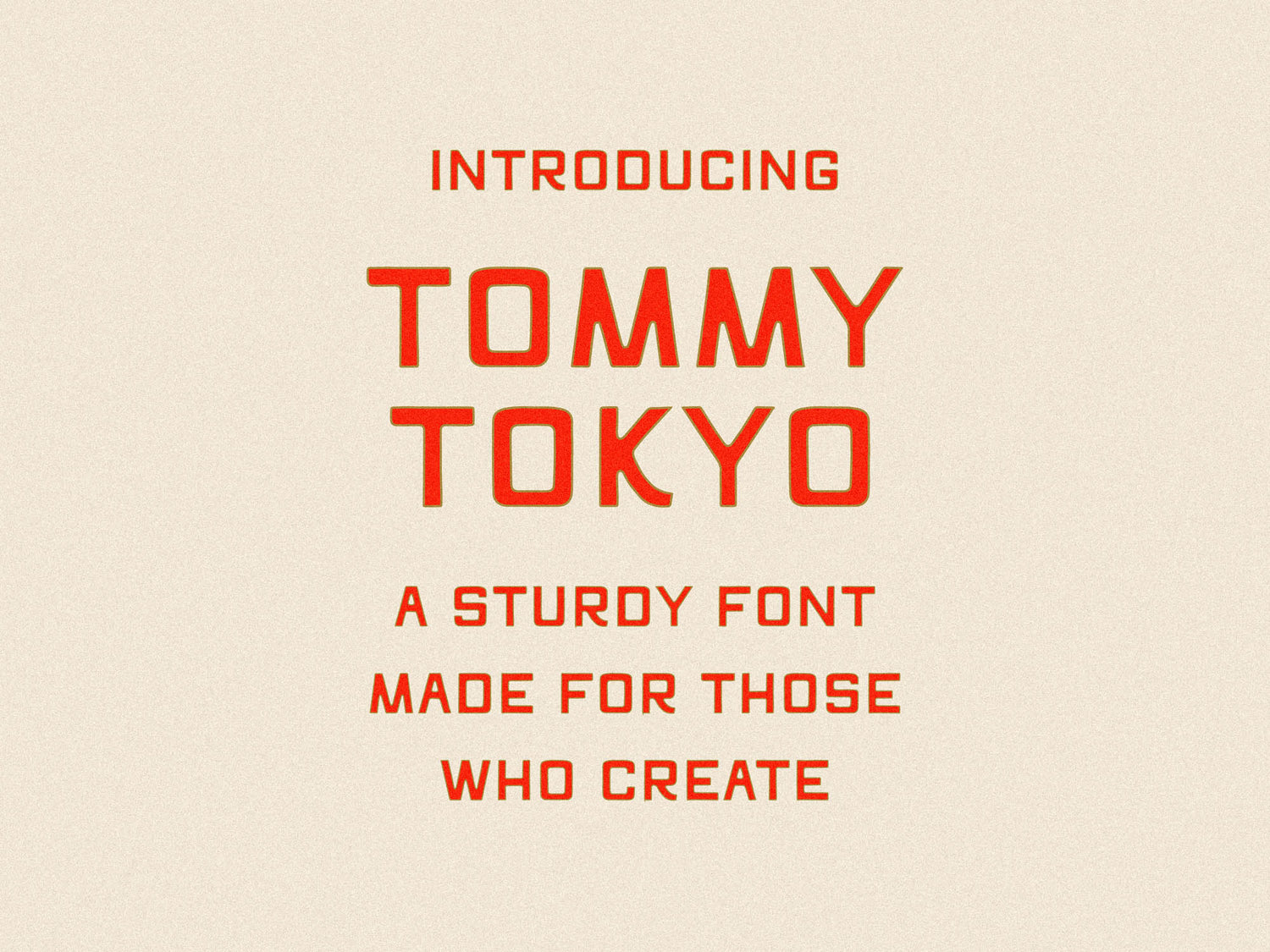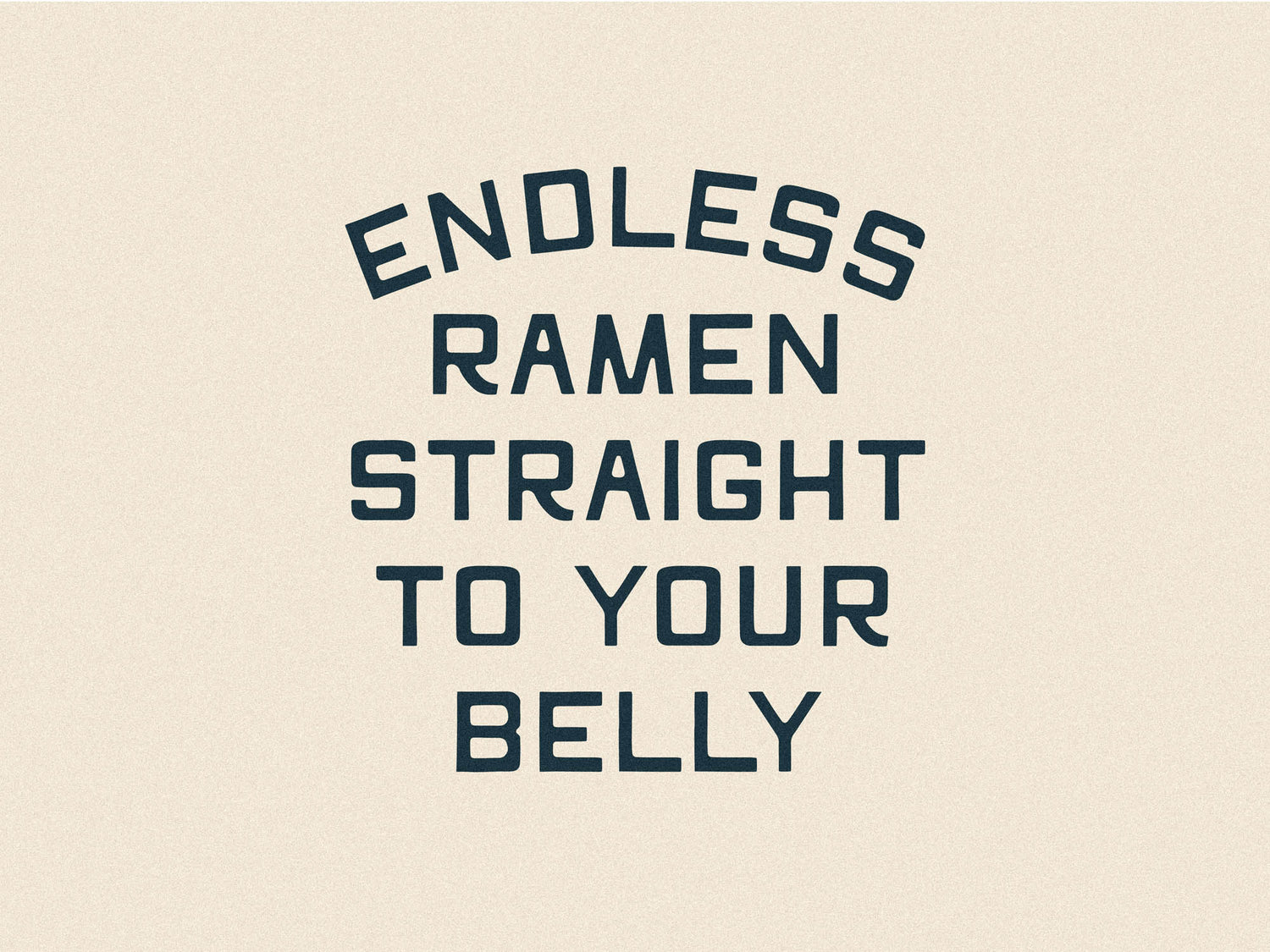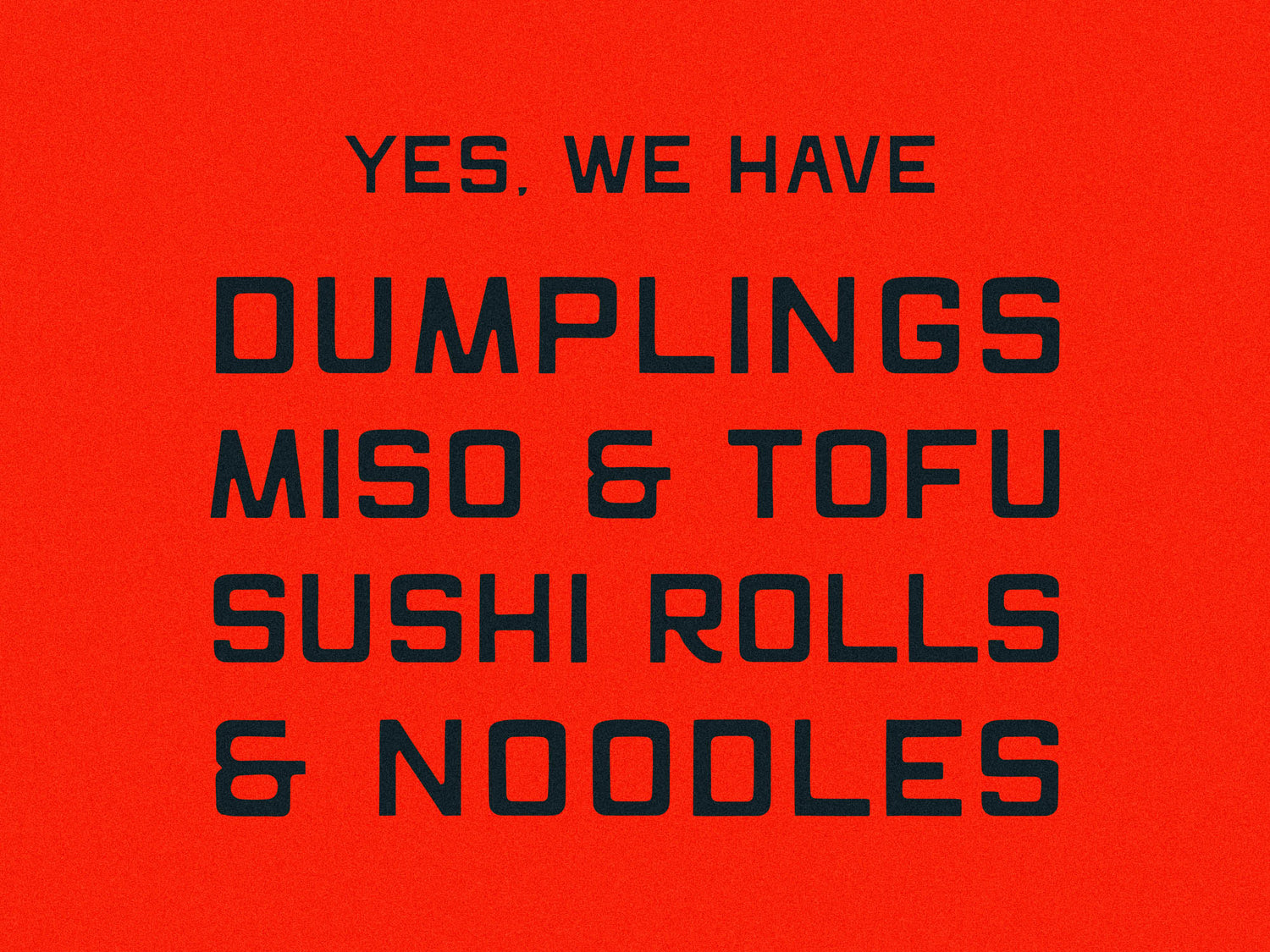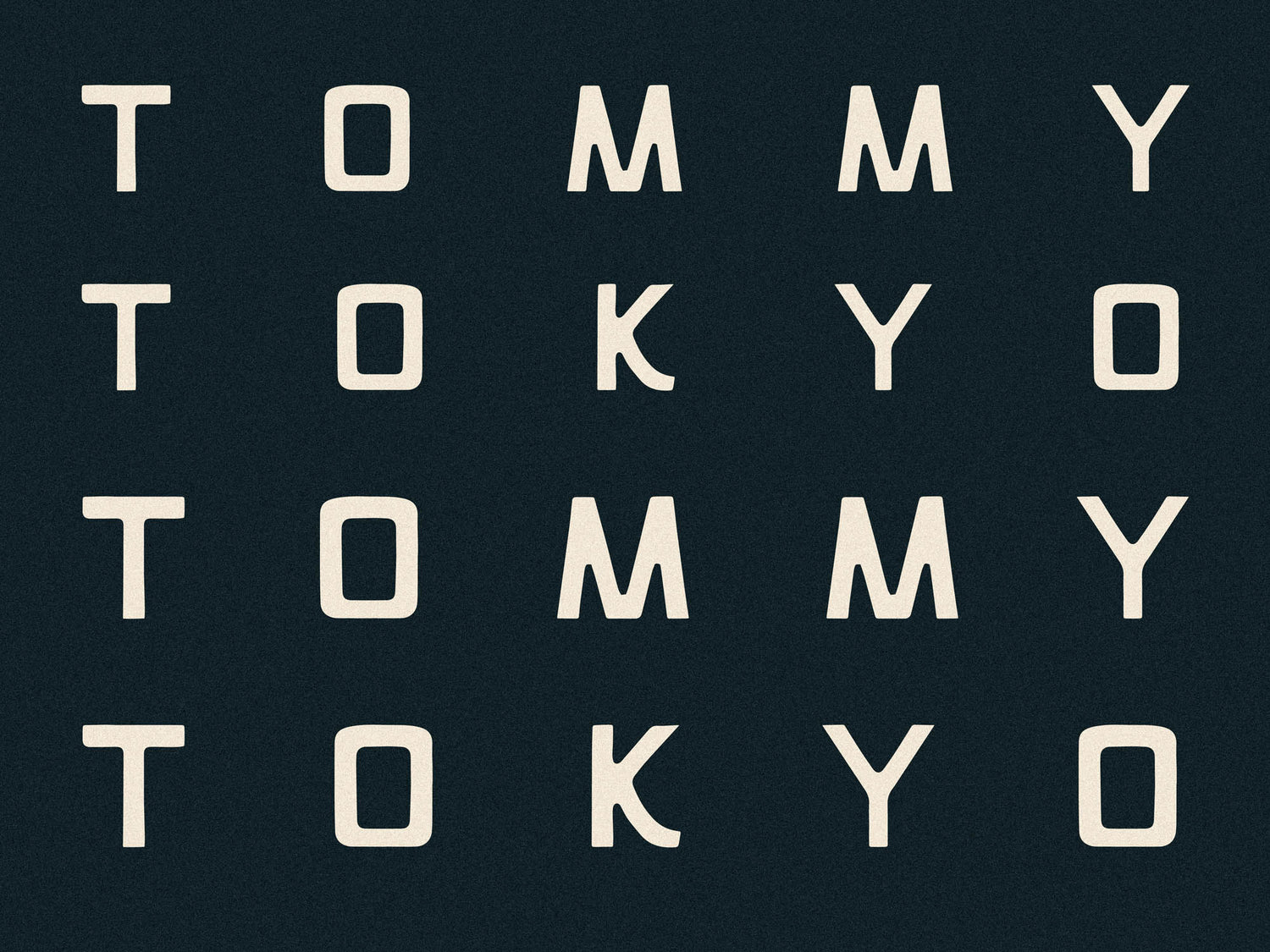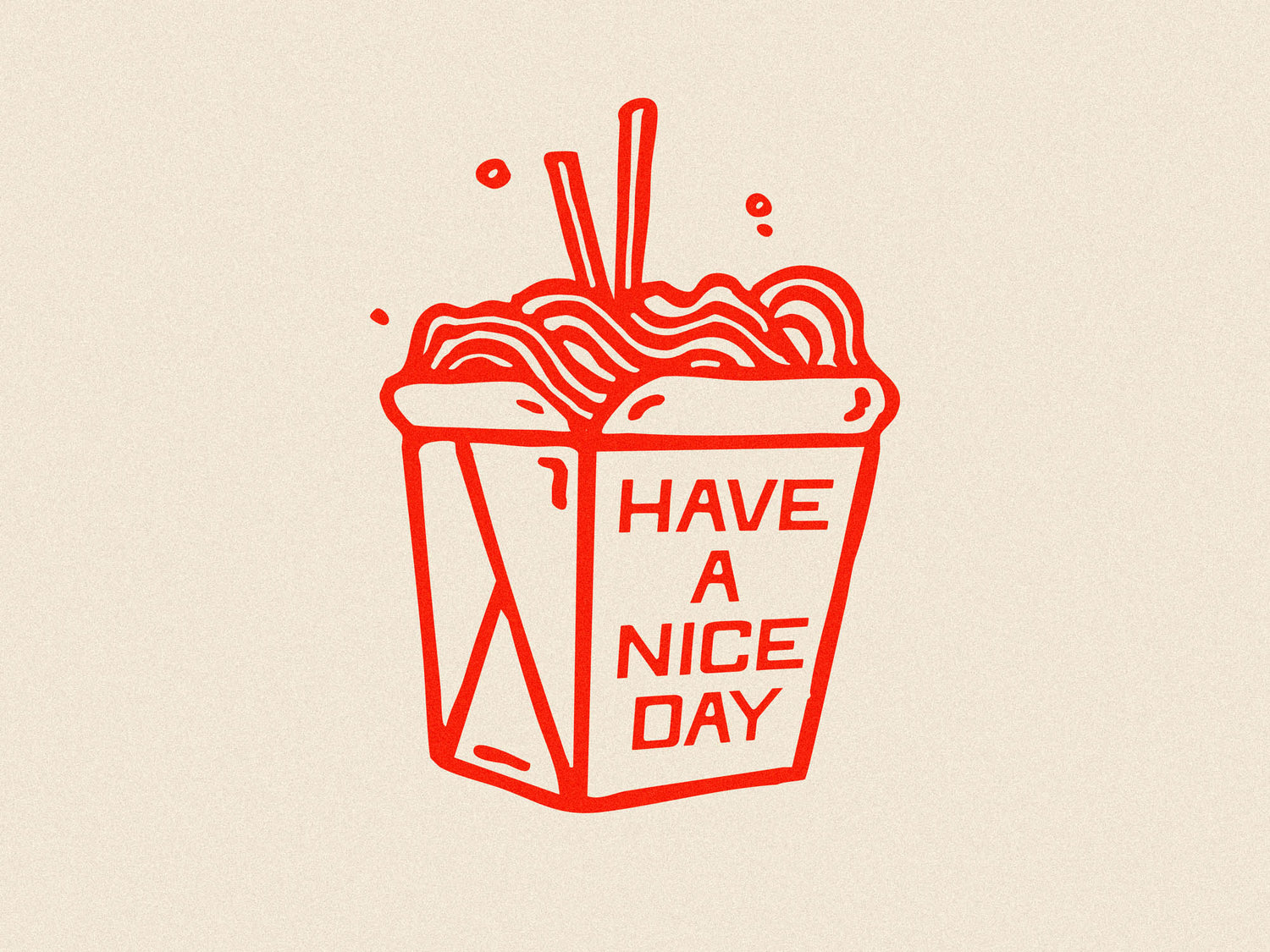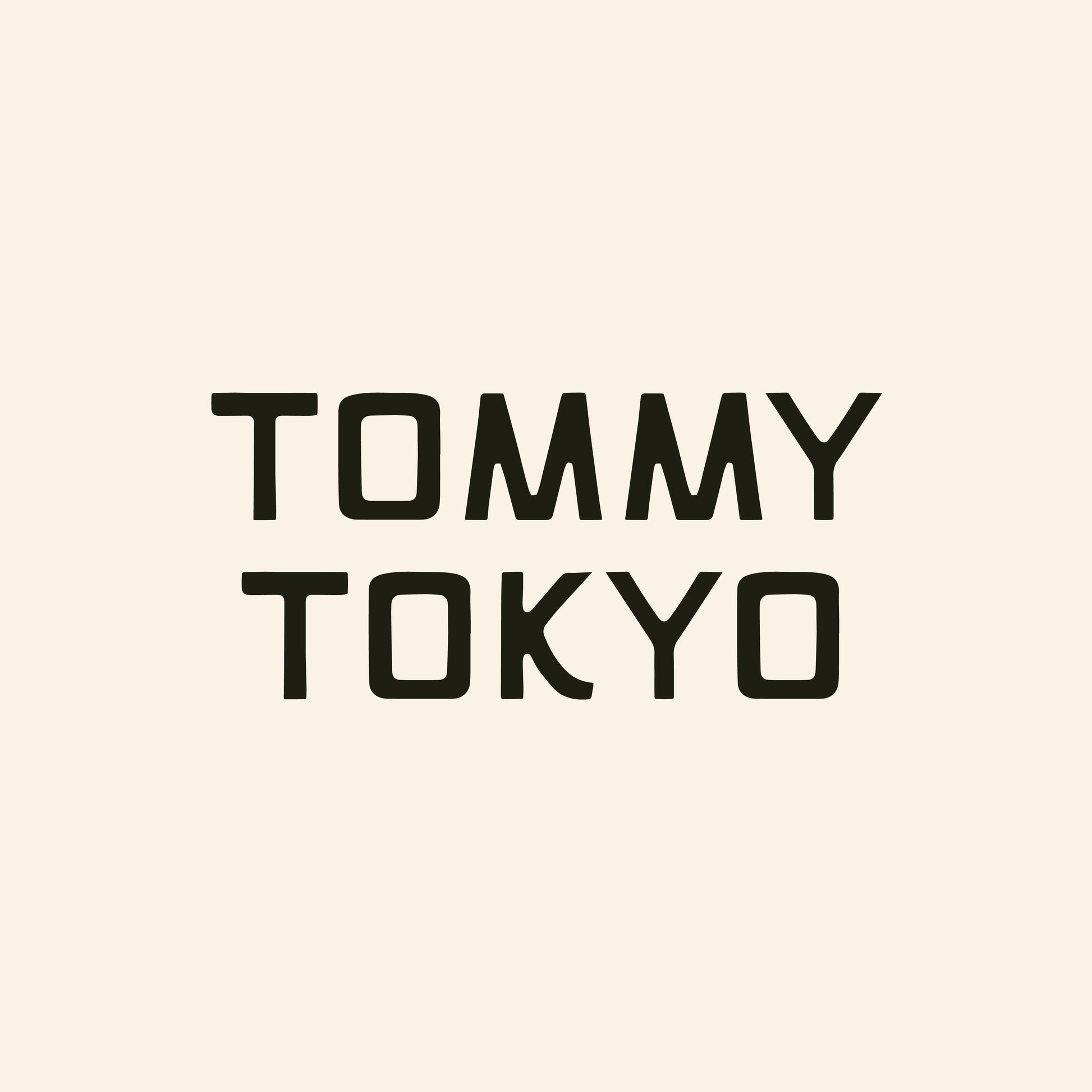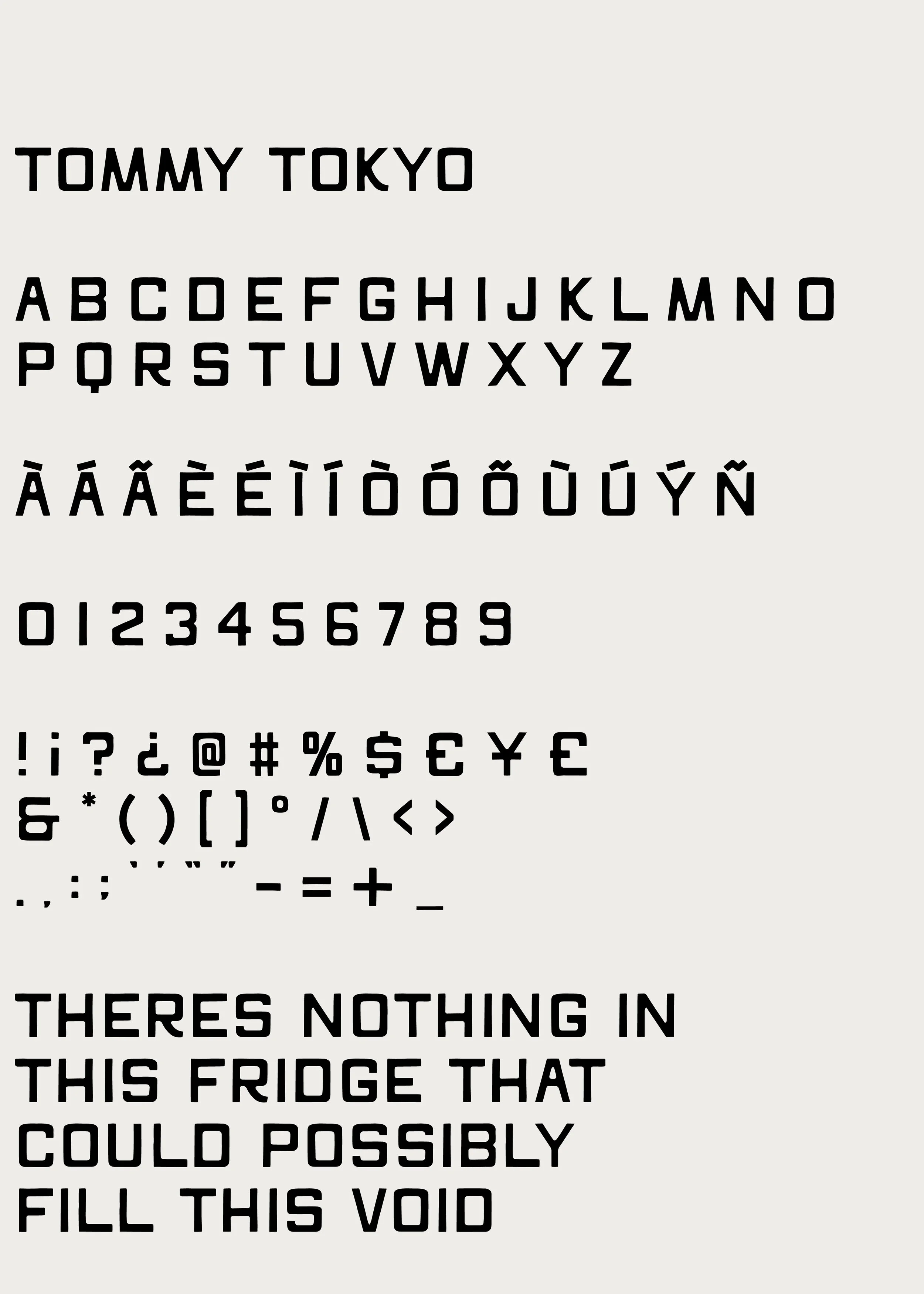
Tommy Tokyo
The one that doesn't get yelled at by the coach.
Tommy Tokyo is a hybrid collegiate-style display font with a few curves to chill everybody out a bit. Will it be able to make you the designer you’ve always wanted to be? No. Will it finally give your work the love and care it truly needs? Maybe.